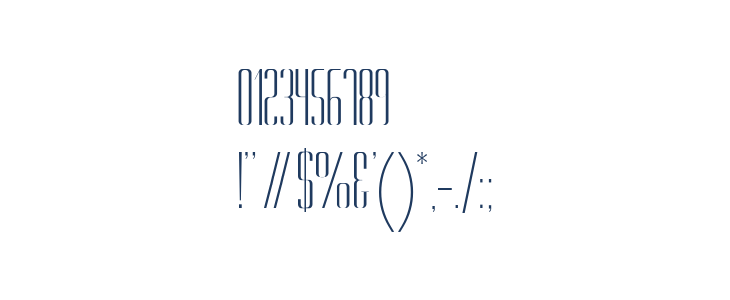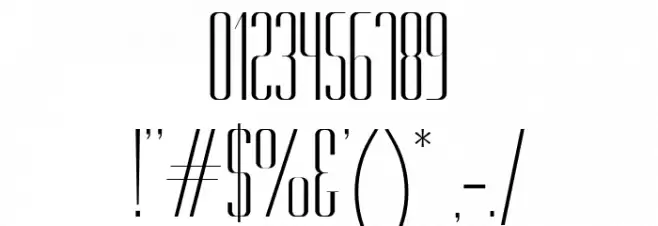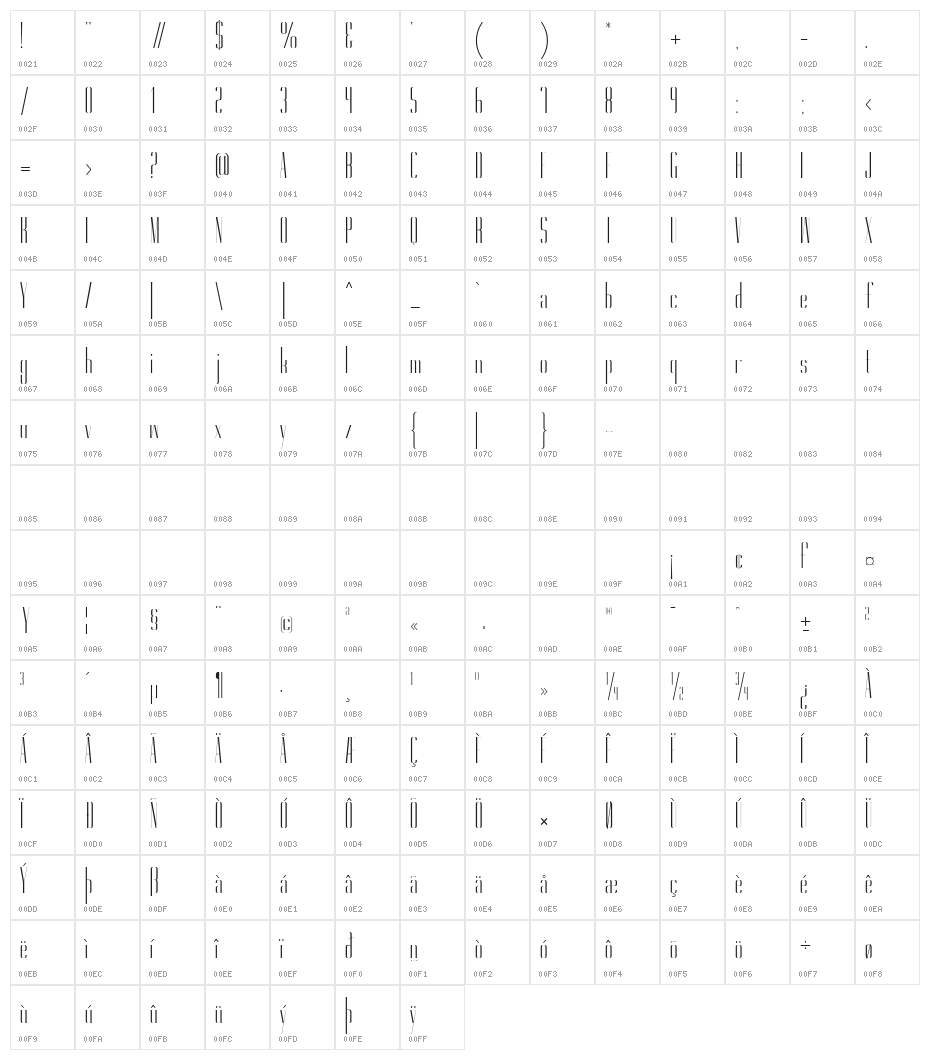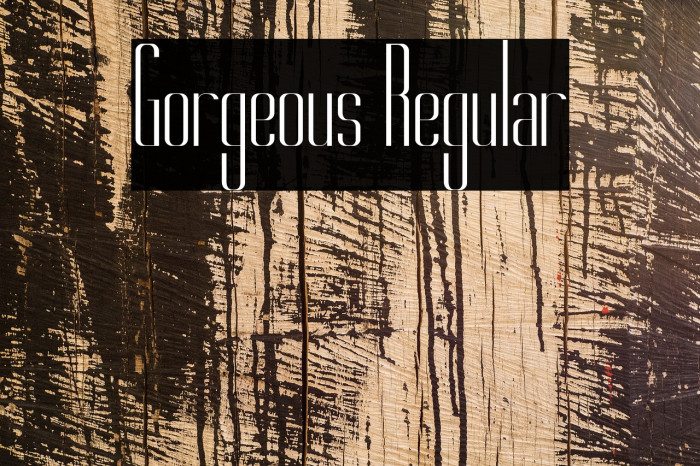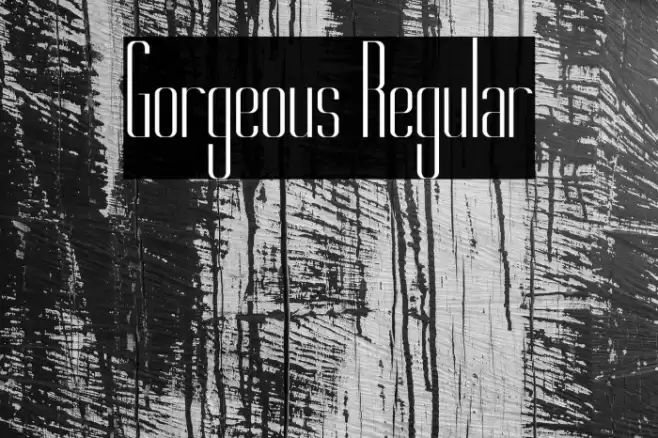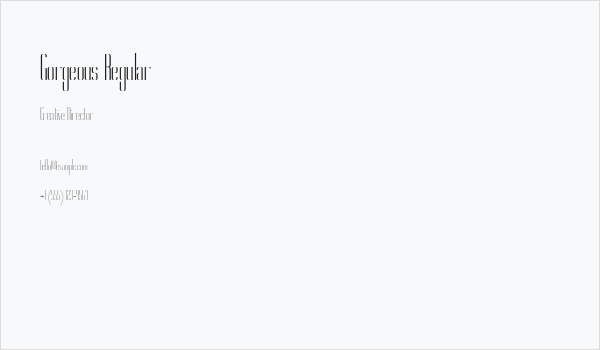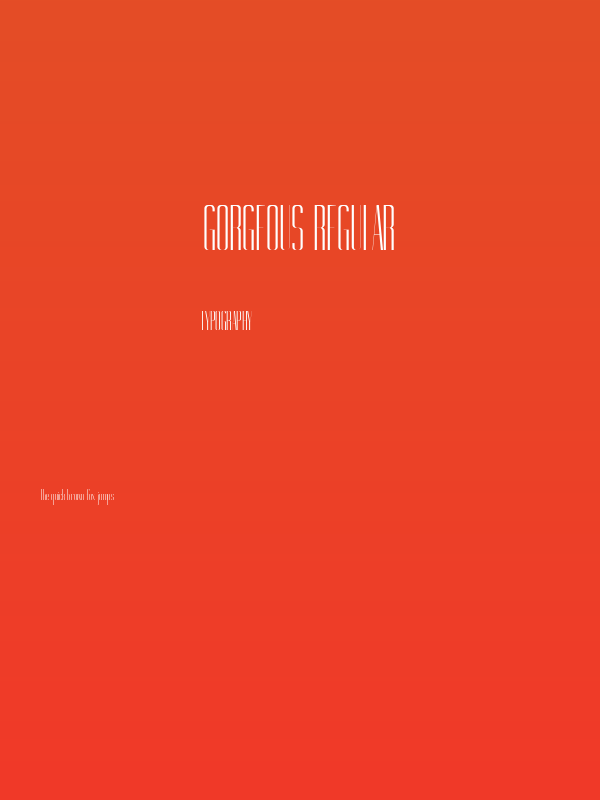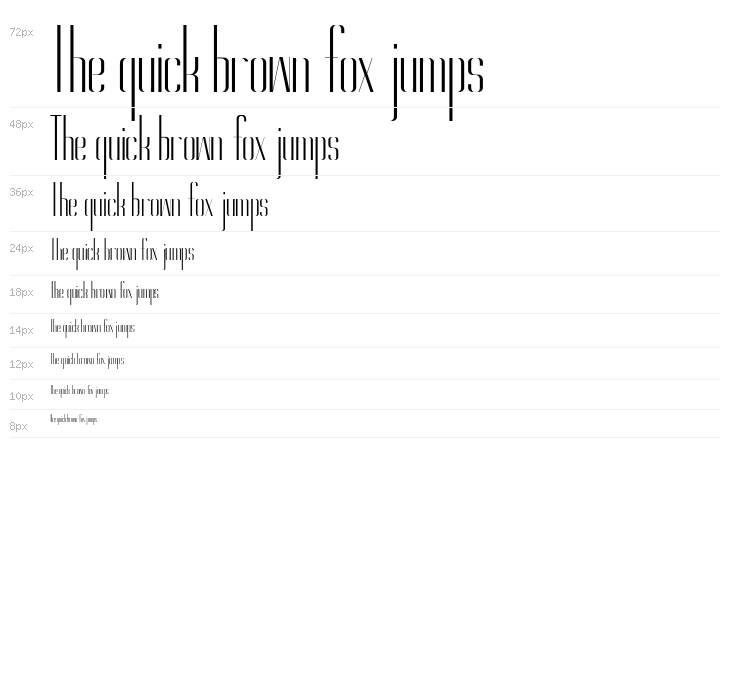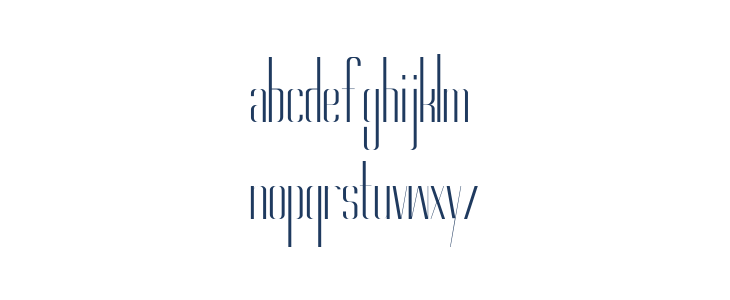
Gorgeous Regular Font
Gorgeous Regular Description
This font features a tall, elegant design with elongated letterforms that convey a sense of sophistication and modernity. The characters are narrow with a consistent stroke width, giving it a sleek and refined appearance. The uppercase letters are particularly striking, with their vertical emphasis and minimalistic style. The lowercase letters maintain the same narrow structure, ensuring a cohesive look across all text. Numbers and special characters are designed with the same attention to detail, making them suitable for a variety of uses. The overall aesthetic is clean and contemporary, making it ideal for projects that require a touch of elegance.
| Use Case | Headlines, Logos, Editorial design |
| Proposed Projects | Ideal for fashion magazines, luxury branding, high-end product packaging, and modern editorial layouts. |